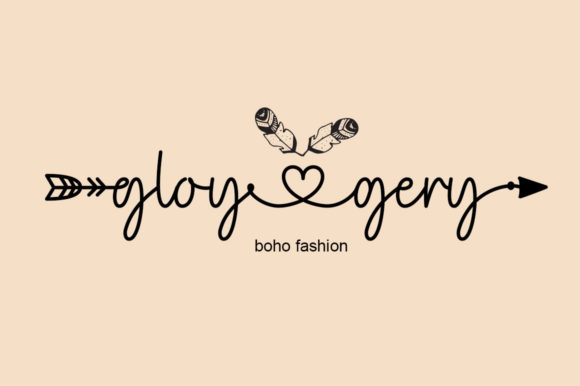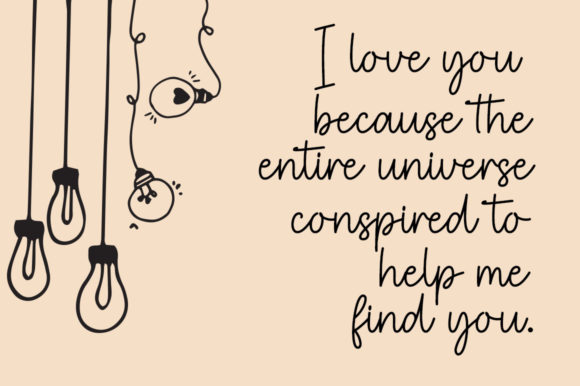
Gladis Font
db-ku.com - Script & Handwritten -- Gladis is a chic, refined script font that emanates sophistication and elegance. Its stylish alternates and ligatures make this font the perfect match for any project.